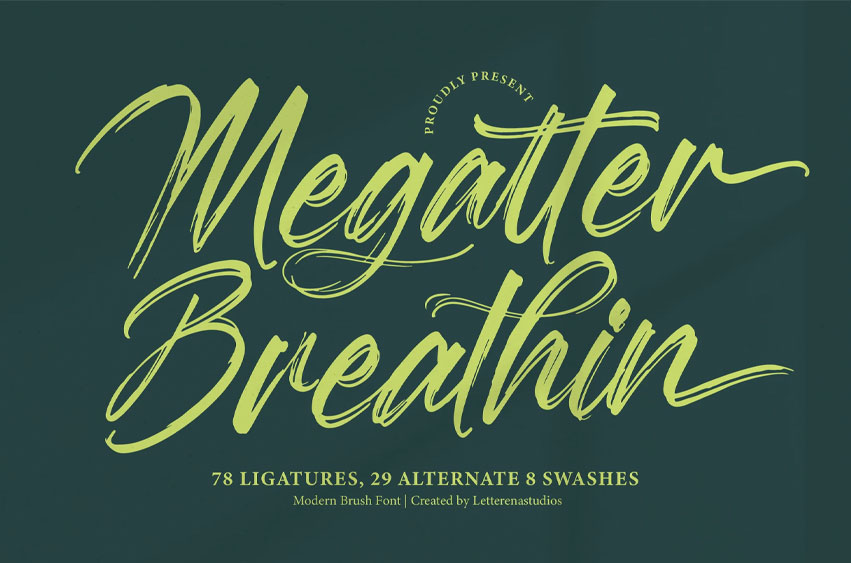
Megatter Breathin Font
Megatter Breathin Font is a modern brush script font with expressive strokes and natural hand-lettered flow, designed to add energy and authenticity to your projects. Megatter Breathin Font is a modern brush script font with expressive strokes and natural hand-lettered flow, designed to add energy.  Featuring 78 ligatures, 29 alternates, and 8 swashes, this typeface is perfect for logos, posters, invitations, branding, packaging, and social media graphics. Its dynamic and organic look makes Megatter Breathin ideal for both digital and print projects, bringing a bold and artistic touch to every design.